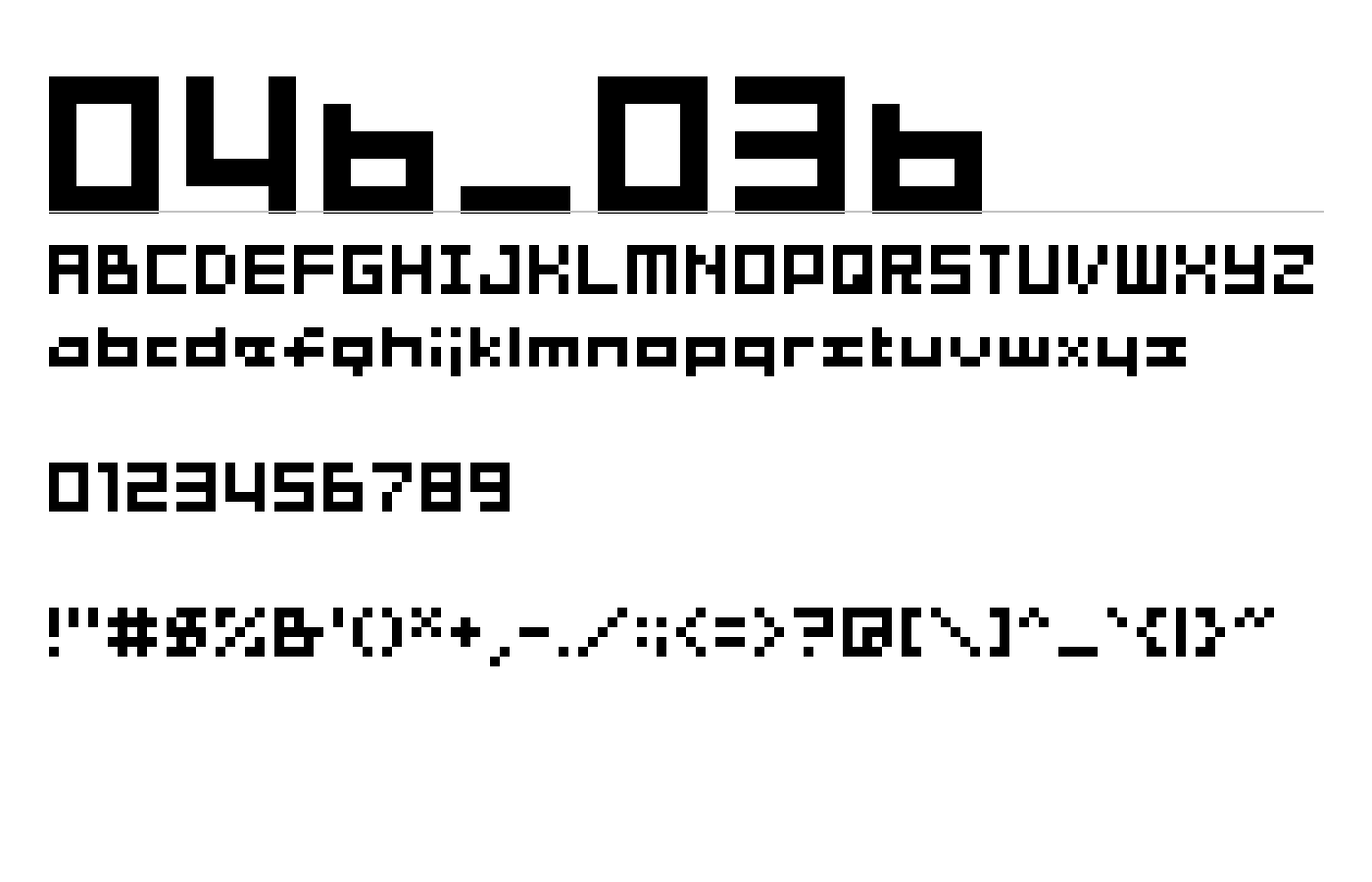
The 04b_03b font is a bold, pixel-style sans serif typeface characterized by its blocky, geometric shapes and uniform stroke weight. With its high x-height and crisp, square letterforms, it conveys a retro, digital aesthetic perfect for gaming, tech, or any project seeking a nostalgic yet modern look. This font works best in headlines, logos, and display uses where clear, impactful readability is essential.
04b_03b Font